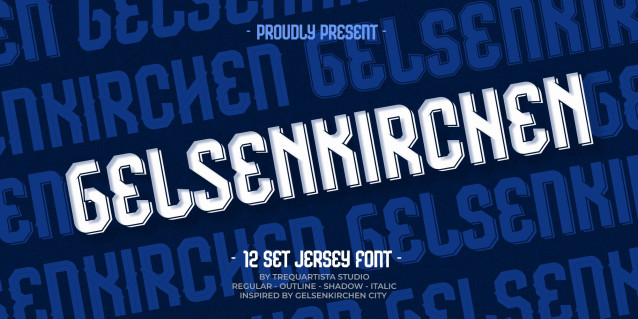
Gelsenkirchen Font is a simple and modern display font suitable for quotes, logos, headings, titles, and many more. Use it on any of your creative projects, and your designs will become outstanding!
| Designer Name: | Studio TRQ |
| Classification: | Display Fonts, Modern Fonts |